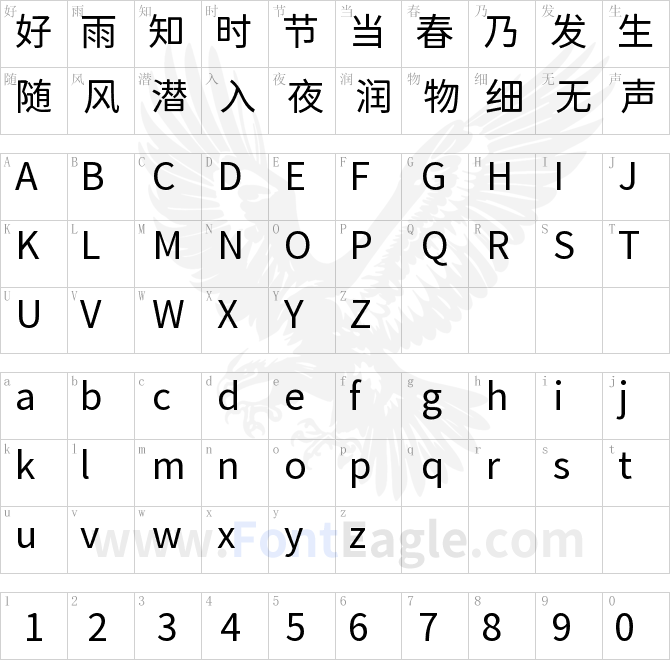
- Font name:獅尾德魯納黑體SC-Regular
- Font Subfamily ID:FontForge 2.0 : Swei Del Luna Sans CJK SC Regular : 20-4-2020
- Font Full Name:獅尾德魯納黑體SC-Regular
- Font Version:Version 2.071
- Postscript:SweiDelLunaSansCJKsc-Regular